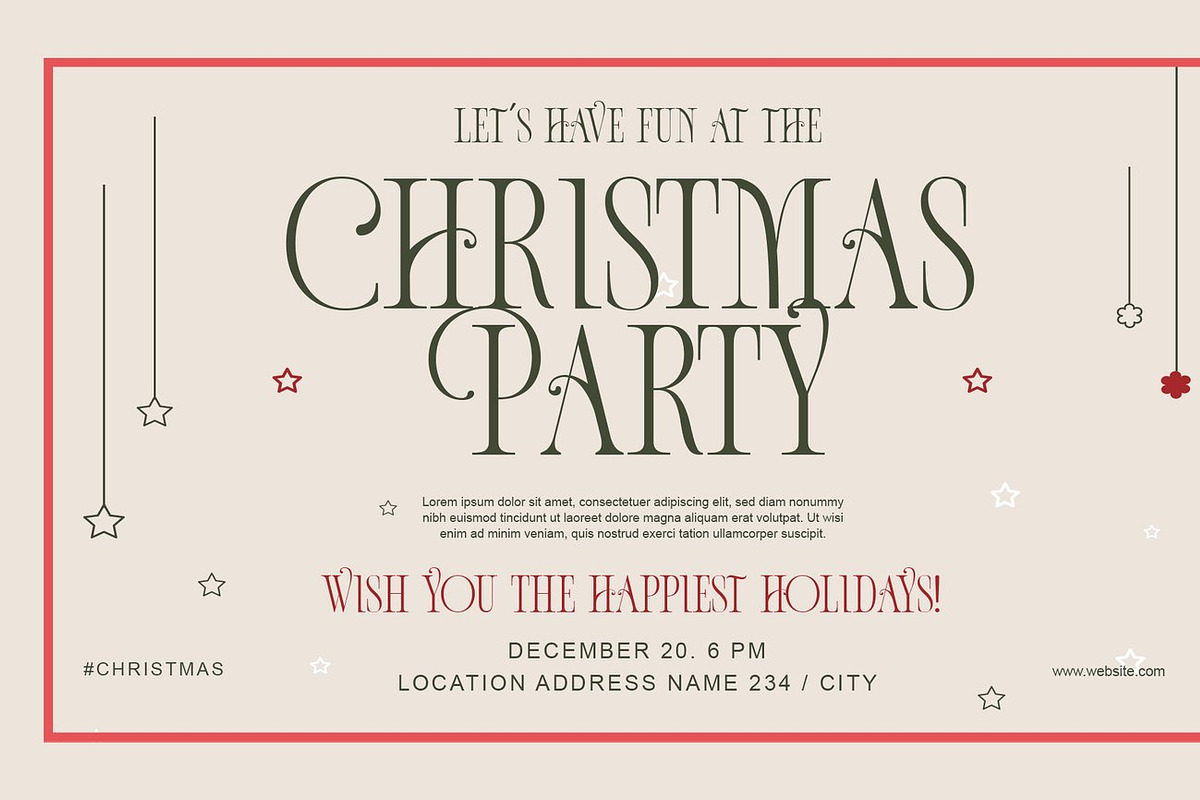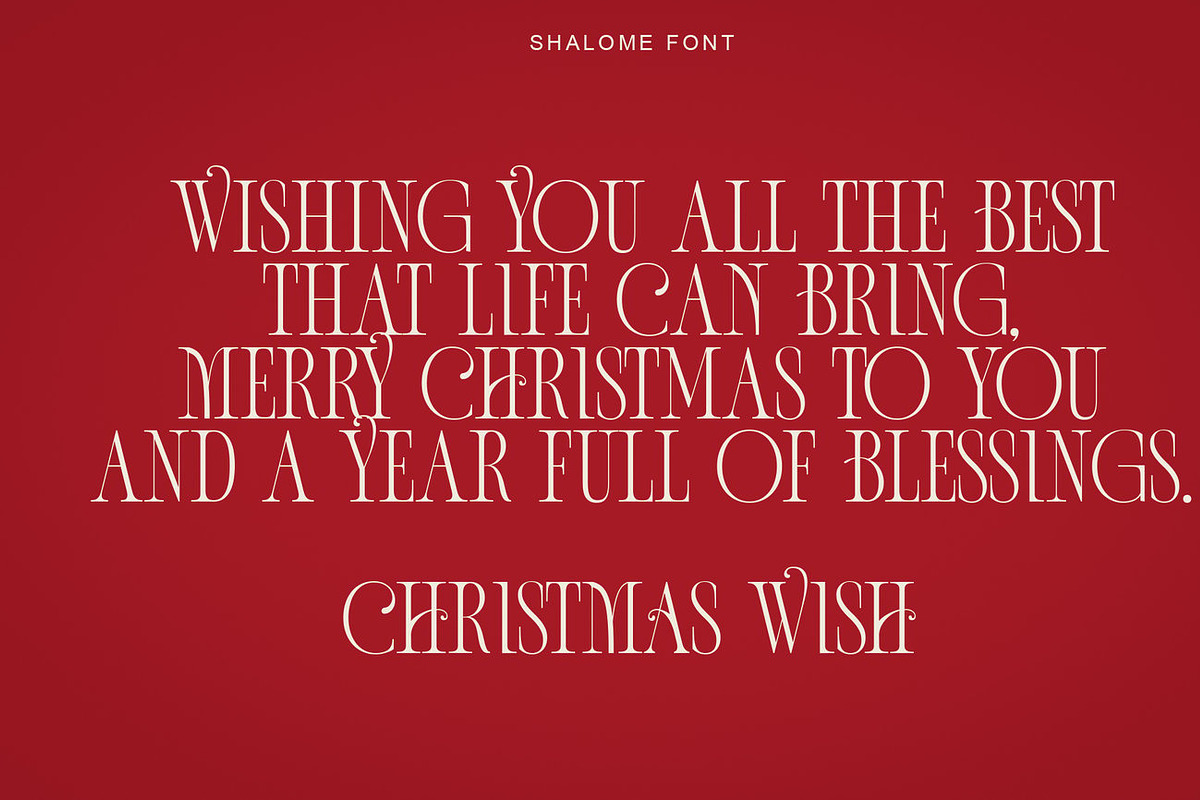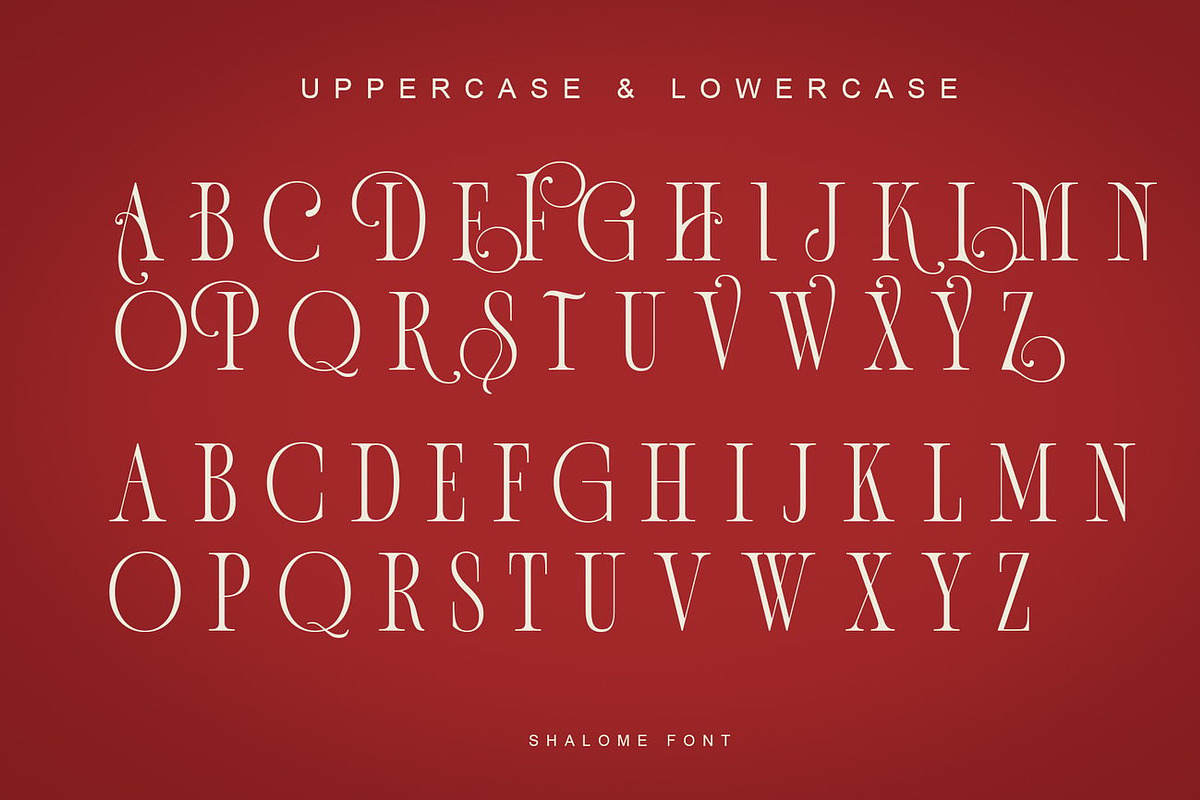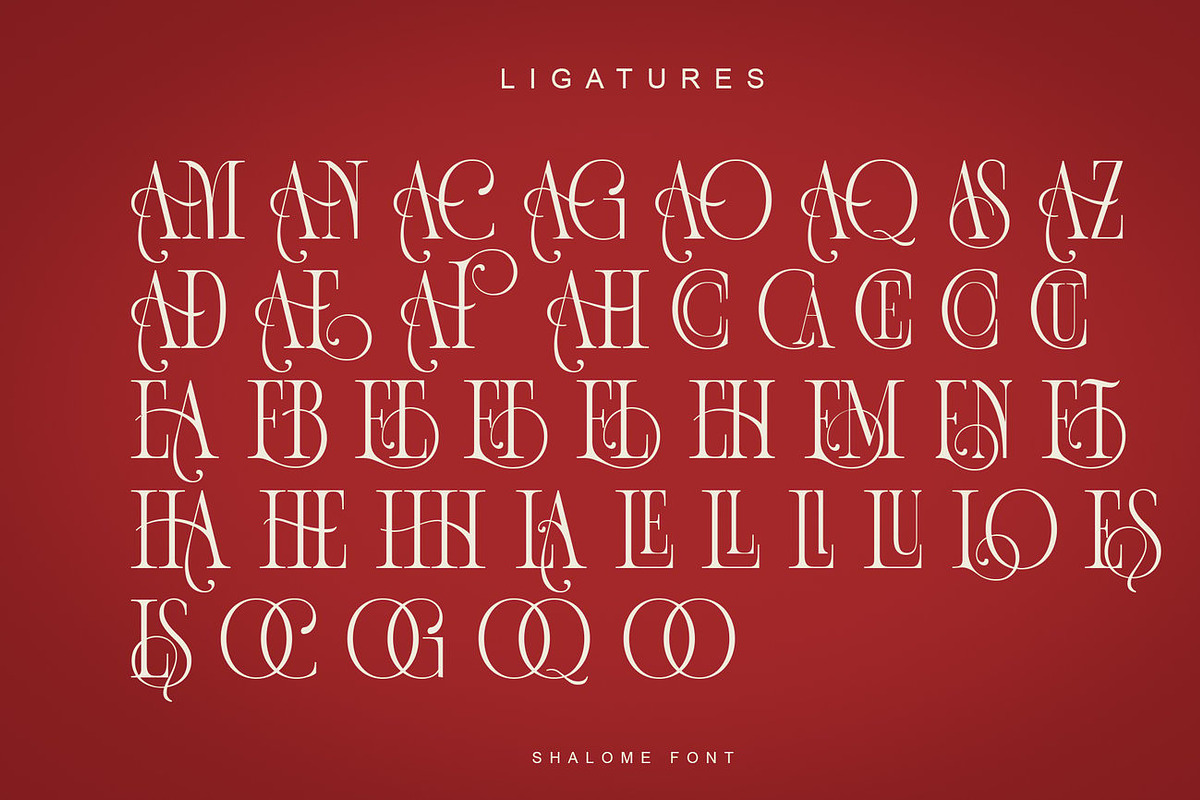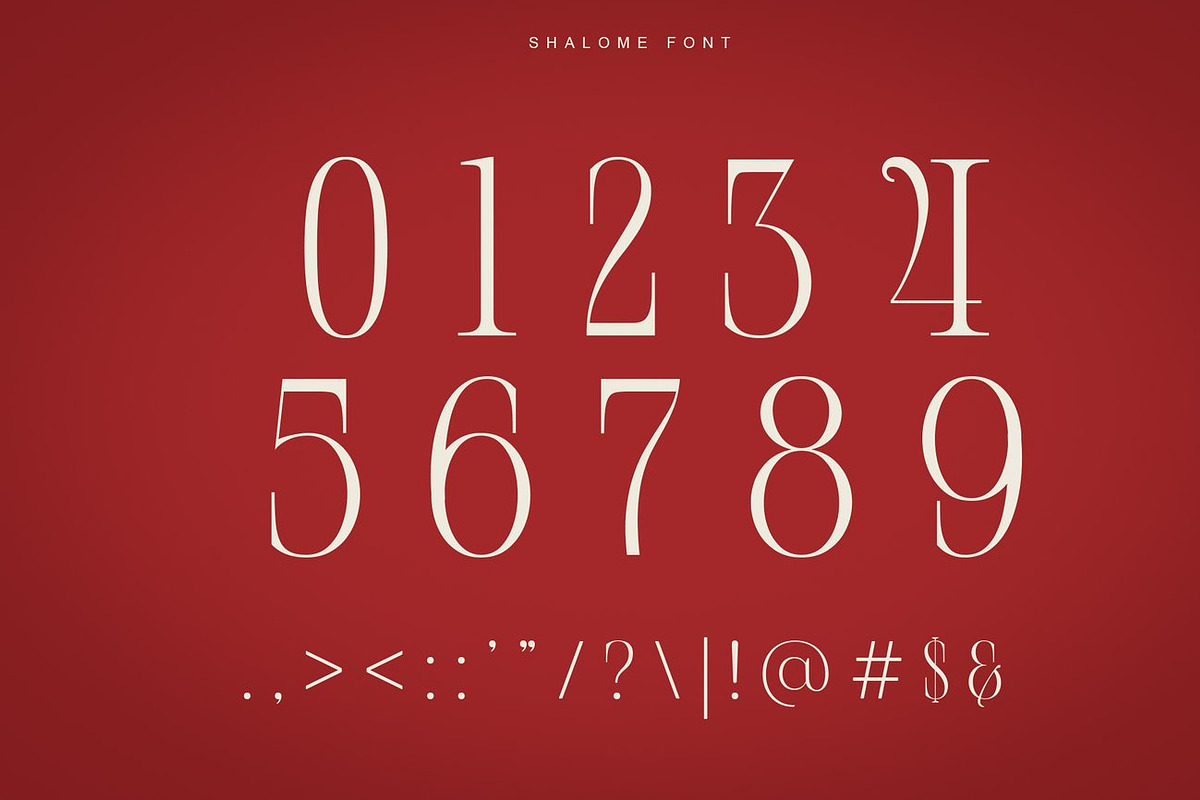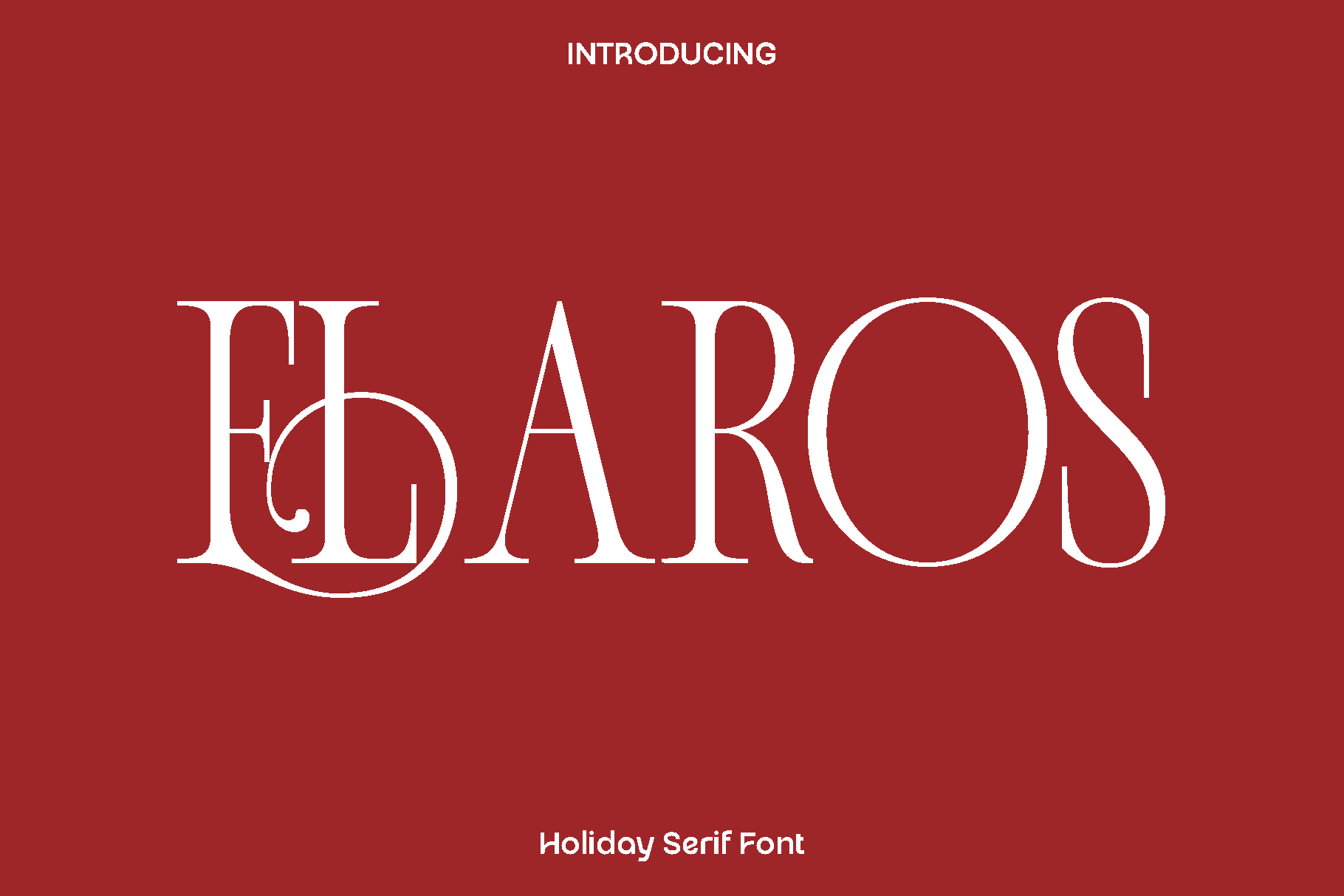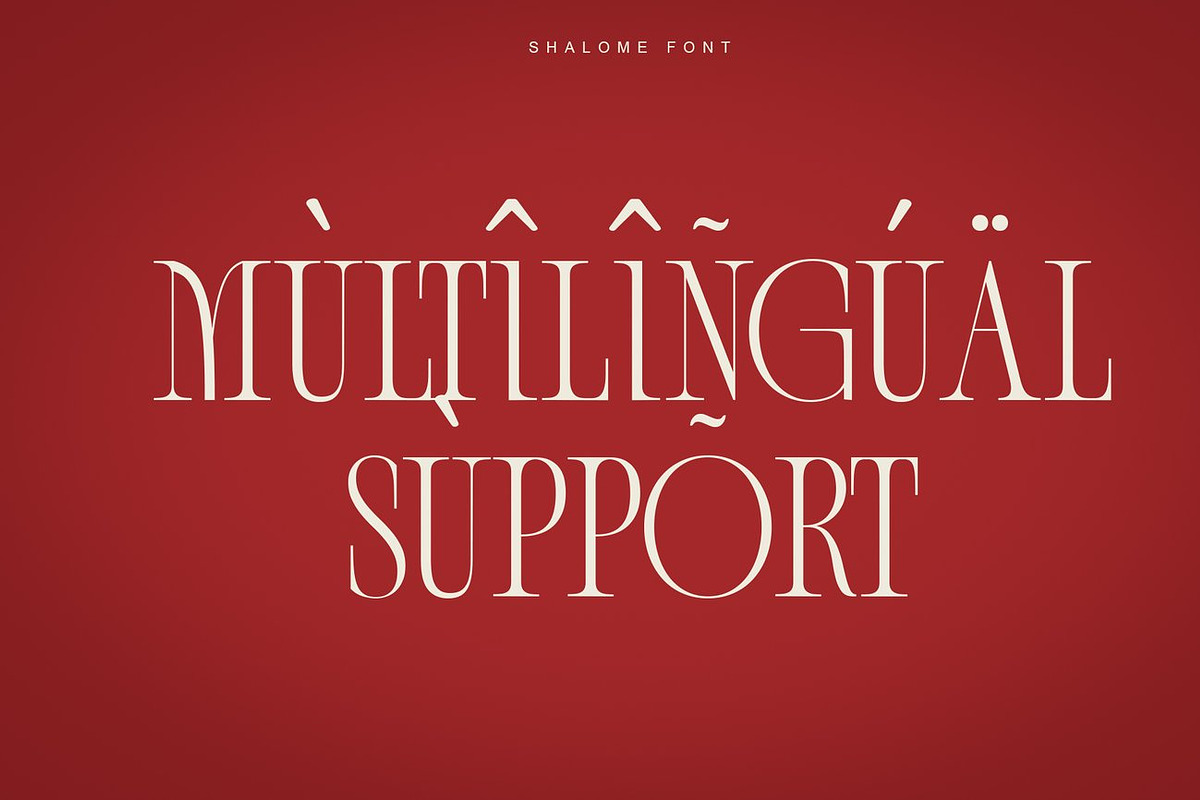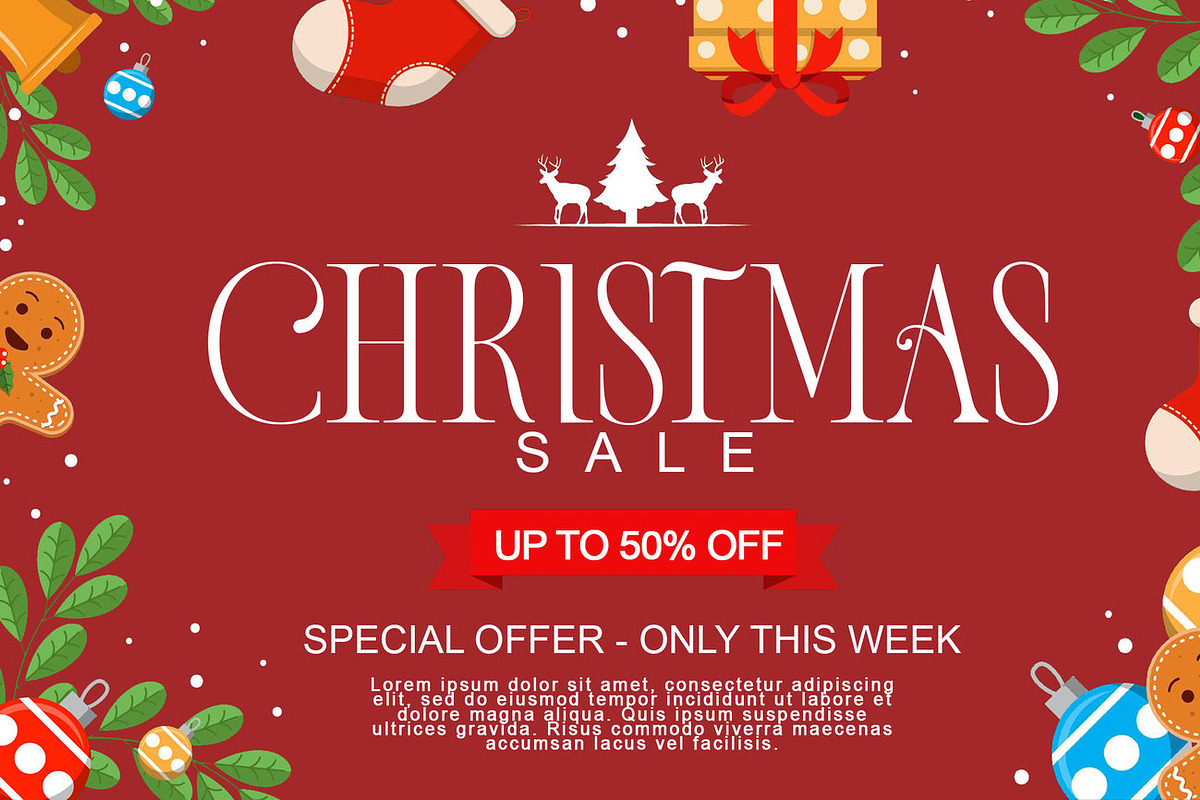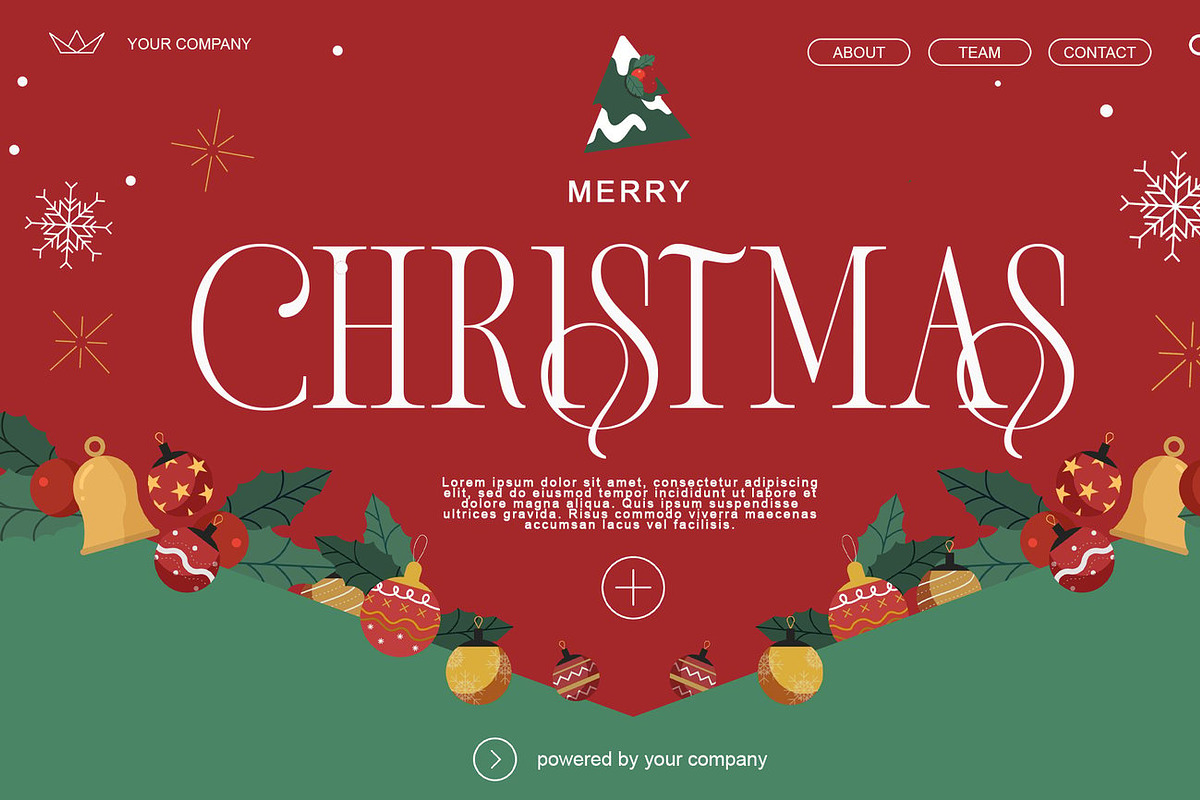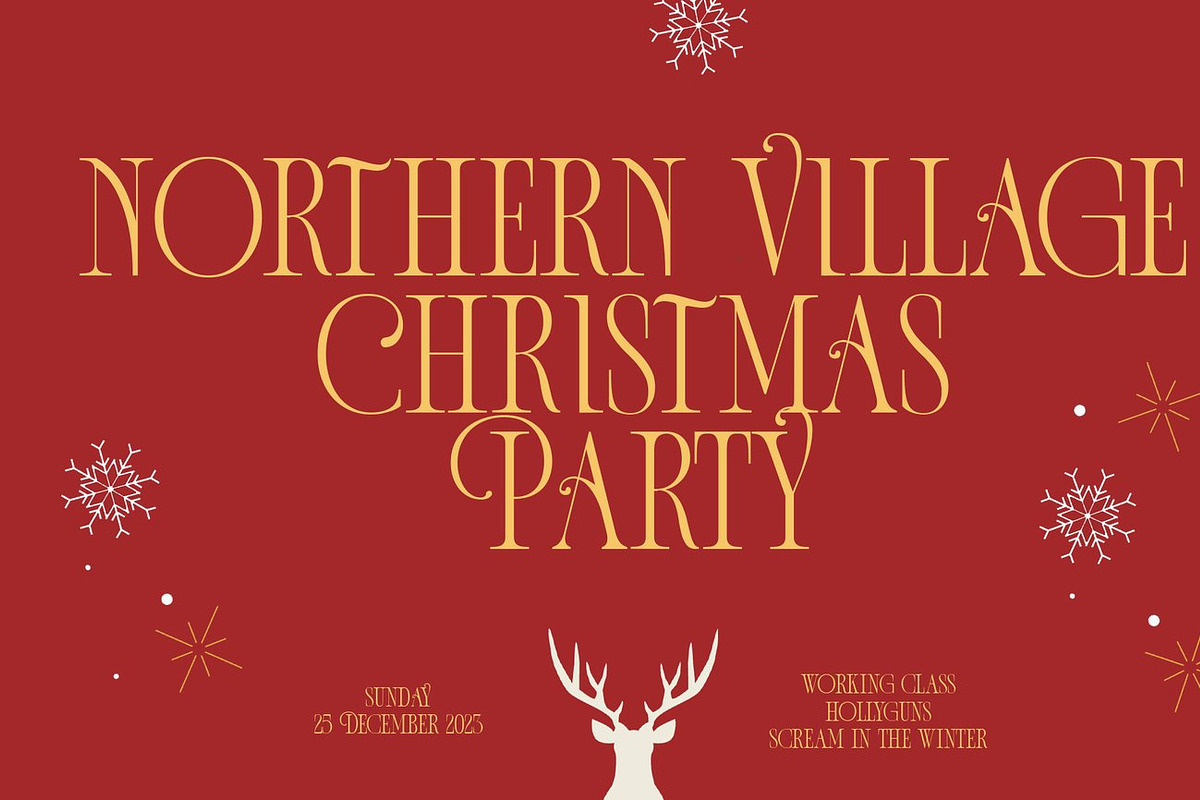
Elaros - Holiday Serif Font
Elaros is a beautifully crafted serif display font designed to bring timeless elegance and feminine sophistication to your creative projects. Inspired by classic typography and refined design aesthetics, Elaros combines graceful curves with delicate details, creating a font that feels both luxurious and approachable. Its alternate stylistic characters add versatility and charm, allowing designers to craft unique compositions with ease.
This font shines in projects that demand a touch of elegance and refinement. Elaros is perfect for logos, high-end branding, wedding invitations, stationery, social media graphics, advertisements, printed quotes, product packaging, labels, photography overlays, watermarks, and special event designs. Its classic yet modern appeal ensures your work communicates sophistication while maintaining readability and impact.
Elaros is particularly suited for festive and seasonal designs, including holiday projects such as Christmas cards and holiday promotions, making it a versatile choice for both personal and professional applications. Its harmonious balance of style and functionality allows it to elevate every design, from bold headlines to delicate typographic accents.
Elaros Serif Display Font Features:
• Classic and feminine serif letterforms
• Beautiful alternate stylistic characters for creative flexibility
• Punctuation, numbers, and symbols
• Uppercase and lowercase
• OpenType features
Elaros transforms ordinary designs into sophisticated and memorable visuals, making it an essential tool for any designer looking to add elegance and timeless beauty to their work.